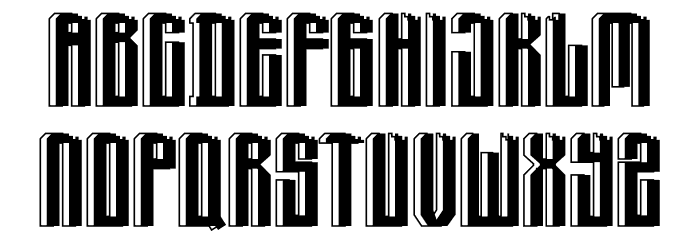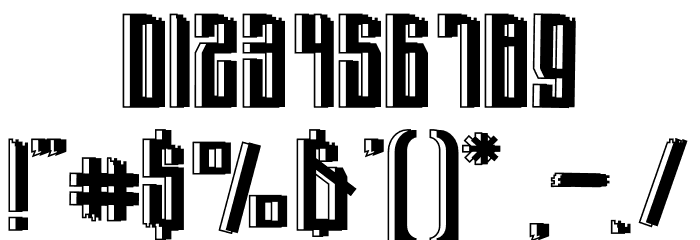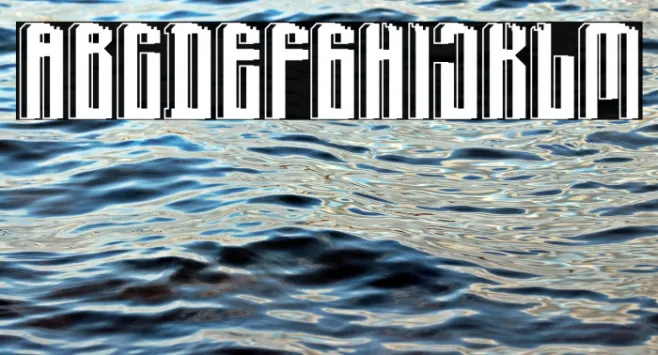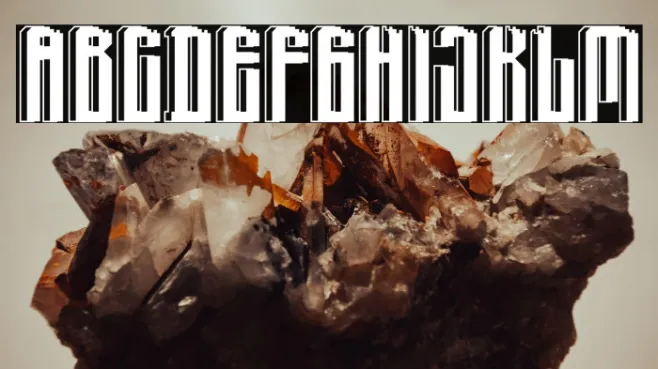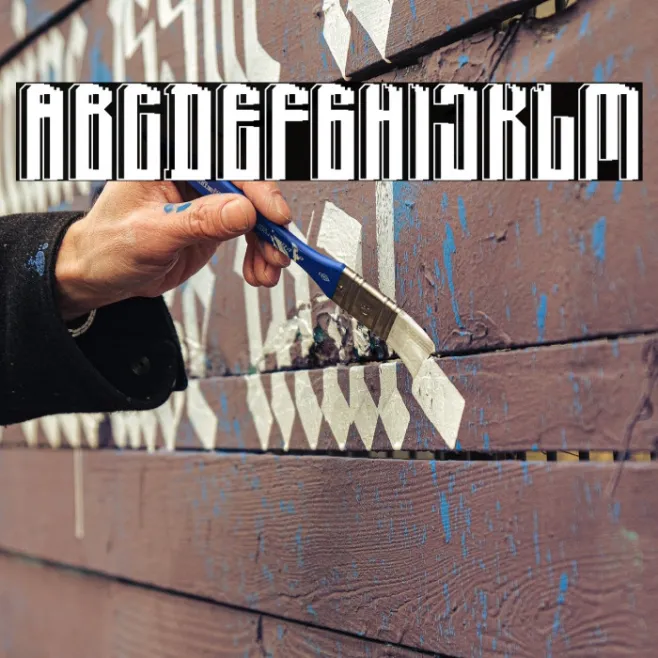
Game Over 2 Font
This font features a bold, geometric design with a strong 3D effect, giving it a dynamic and futuristic appearance. The characters are constructed with sharp, angular lines and a shadowed outline that enhances the depth and visual impact. The uppercase and lowercase letters maintain a consistent style, with a distinct blocky structure that is both eye-catching and legible. The numerals and special characters follow the same design principles, ensuring uniformity across the entire character set. This font is ideal for projects that require a modern, edgy look with a touch of retro gaming aesthetics.
A bold, geometric font with a 3D effect and retro gaming vibe.
- Font: Game Over 2
- Proposed Projects: Perfect for video game titles, tech-themed posters, and futuristic branding.
- Overall Style: Futuristic, Retro